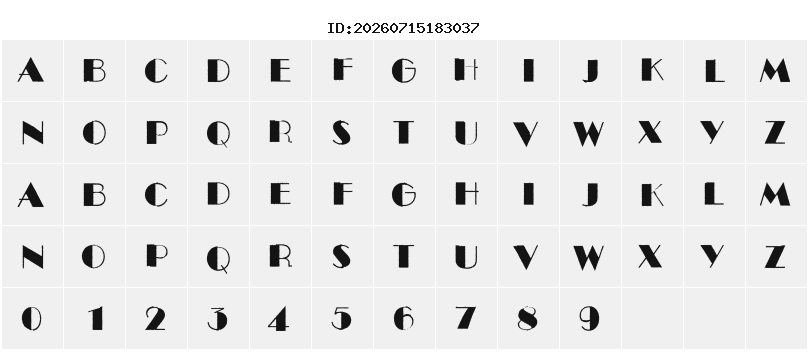
a_BentoRgh Preview
• Font Name: a_BentoRgh
• Font ID: ArsenalCompany: a_BentoRough: 1999
• Full Font Name: a_BentoRgh
• Version: Version 1.0; 1999; initial release
• PostScript Name: a_BentoRgh
• Character Count: 300
• Designer: W.Chufarofsky & M.Slutsker
About a_BentoRgh.ttf
a_BentoRgh.ttf is a modern, elegant sans-serif font designed for ultimate readability and visual harmony. Perfect for branding, headlines, web design, and print materials.